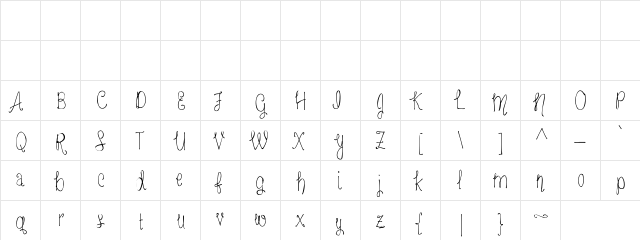
MRF Freckled Lemonade Medium Free Font
MRF Freckled Lemonade Medium
Designer: Sabrina Schleiger
Design Context for MRF Freckled Lemonade
MRF Freckled Lemonade is a composed and adaptable typeface that performs quietly and consistently across a wide range of design contexts.